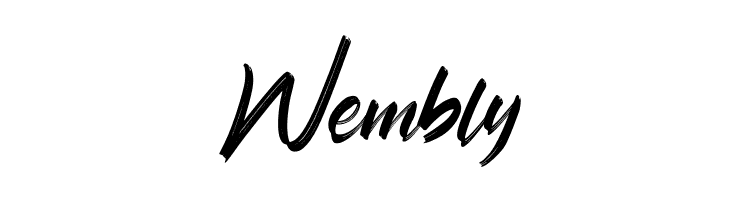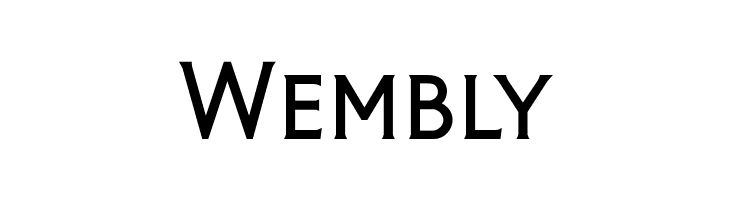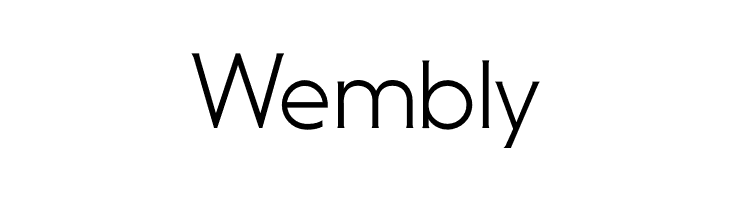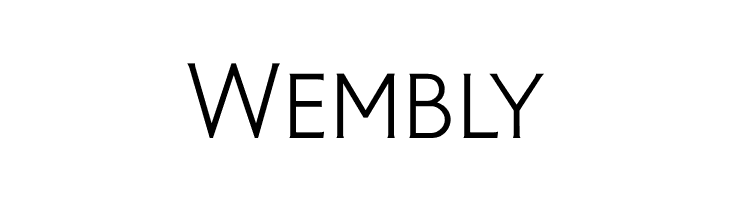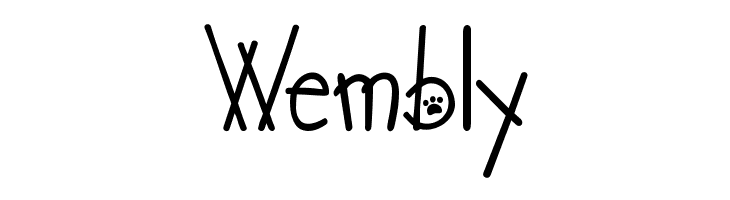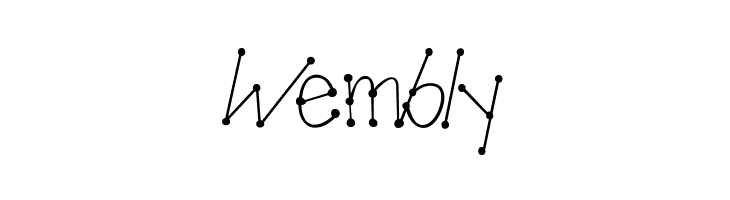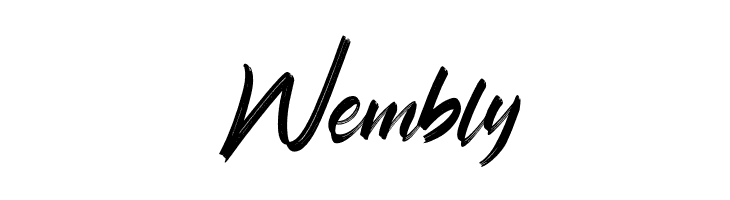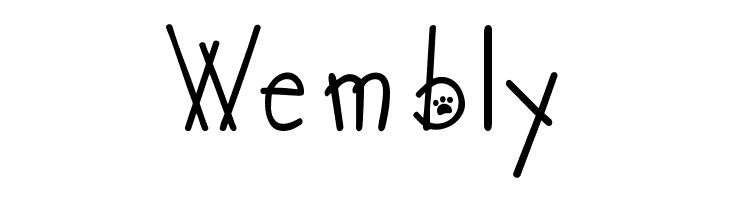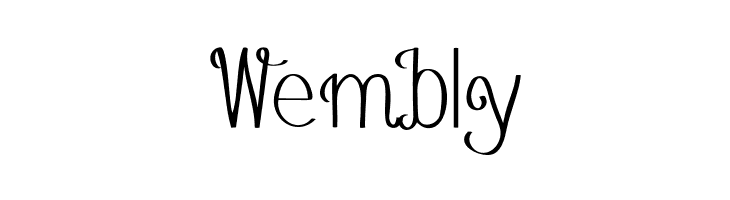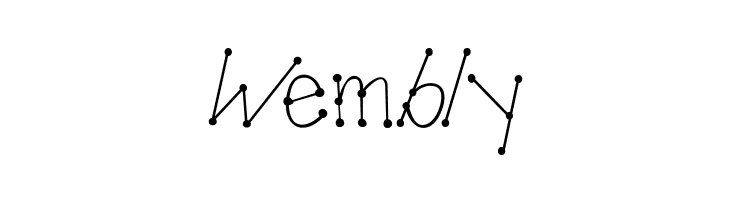
A modern, elegant font with clean lines and excellent readability.
A clean, modern sans-serif font with a minimalist design.
A clean, modern font with uniform stroke width and excellent readability.
A modern sans-serif font with clean lines and a professional appearance.
Elegant handwritten script font.
A dynamic brush-style font with scratchy, textured strokes for an artistic look.
A bold, dynamic script font with expressive strokes and lively character.
A bold, dynamic script font with sweeping strokes and a casual elegance.
A whimsical and elegant script font with flowing, interconnected letterforms.
A diverse collection of creatively styled arrows with decorative elements.
A whimsical, playful font with curly, looping letterforms and decorative elements.
A whimsical, decorative font with curly embellishments and playful style.
A whimsical, hand-drawn font with playful curls and a sketch-like texture.
A playful, hand-drawn font with bold outlines and whimsical elements.
A decorative font with playful Christmas-themed doodles.
A bold, playful font with chunky, rounded characters for a whimsical look.
A playful, bold font with rounded strokes and smooth curves.
A whimsical, hand-drawn font with tall, narrow characters.
A whimsical and decorative font with playful curls and swirls.
A whimsical, curly font with decorative swirls and playful elements.
A playful, hand-drawn font with a whimsical and approachable style.
A playful, handwritten font with a whimsical and decorative style.
A playful, casual handwritten font with flowing strokes and a friendly appearance.
A whimsical, fairy tale-inspired font with elegant swirls and curls.
A playful, paw-print adorned font with a whimsical, hand-drawn style.
A playful, handwritten-style font with rounded edges and a whimsical appearance.
A playful, hand-drawn font with a whimsical and artistic style.
A playful, dot-connected font with a whimsical, hand-drawn style.
A playful, connect-the-dots style font with a whimsical, hand-drawn appearance.